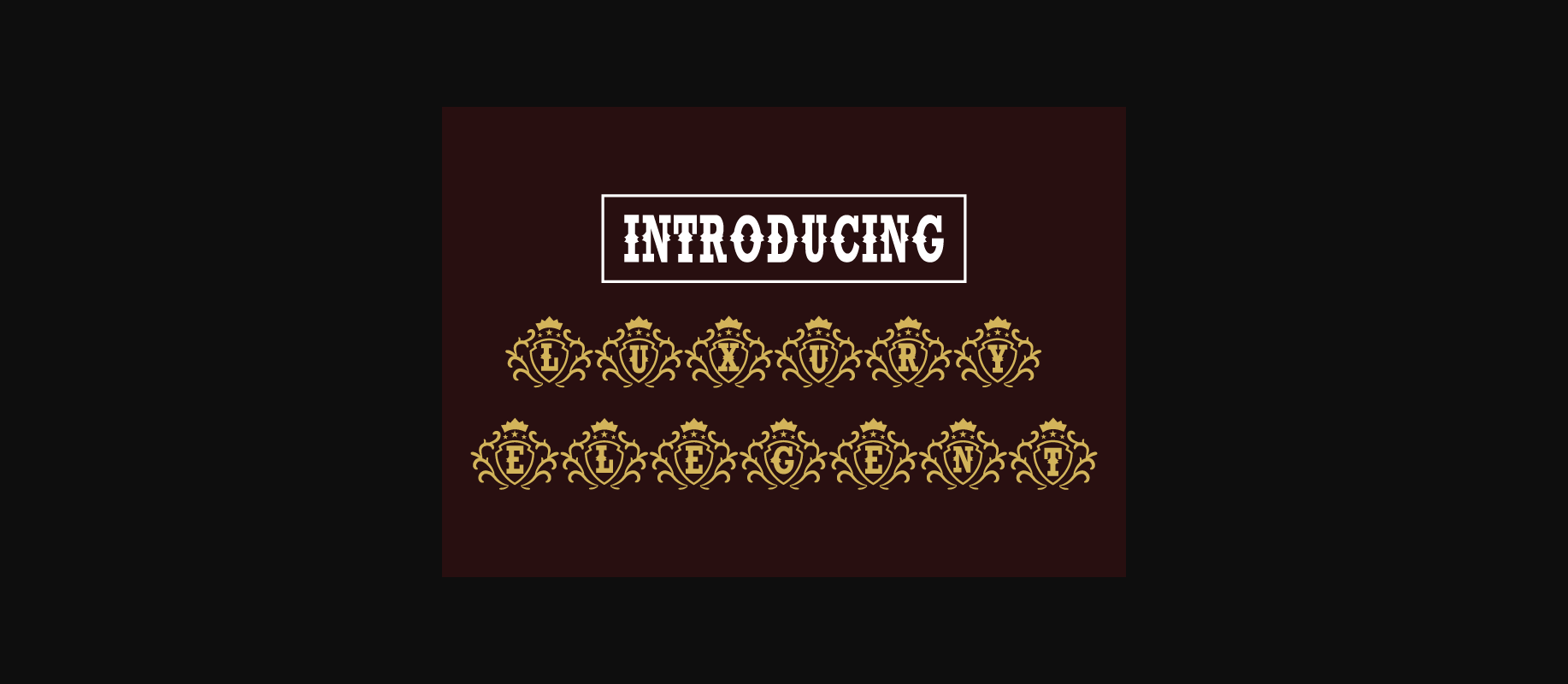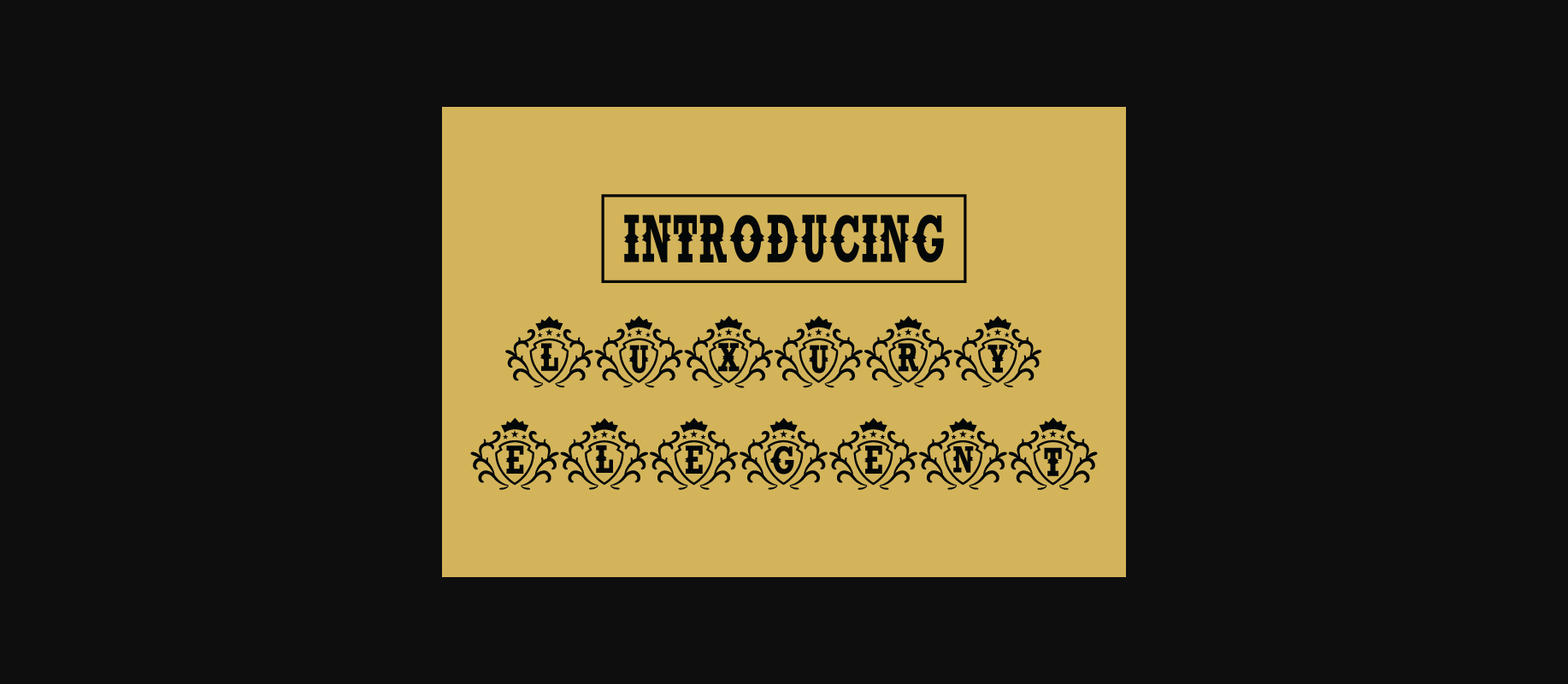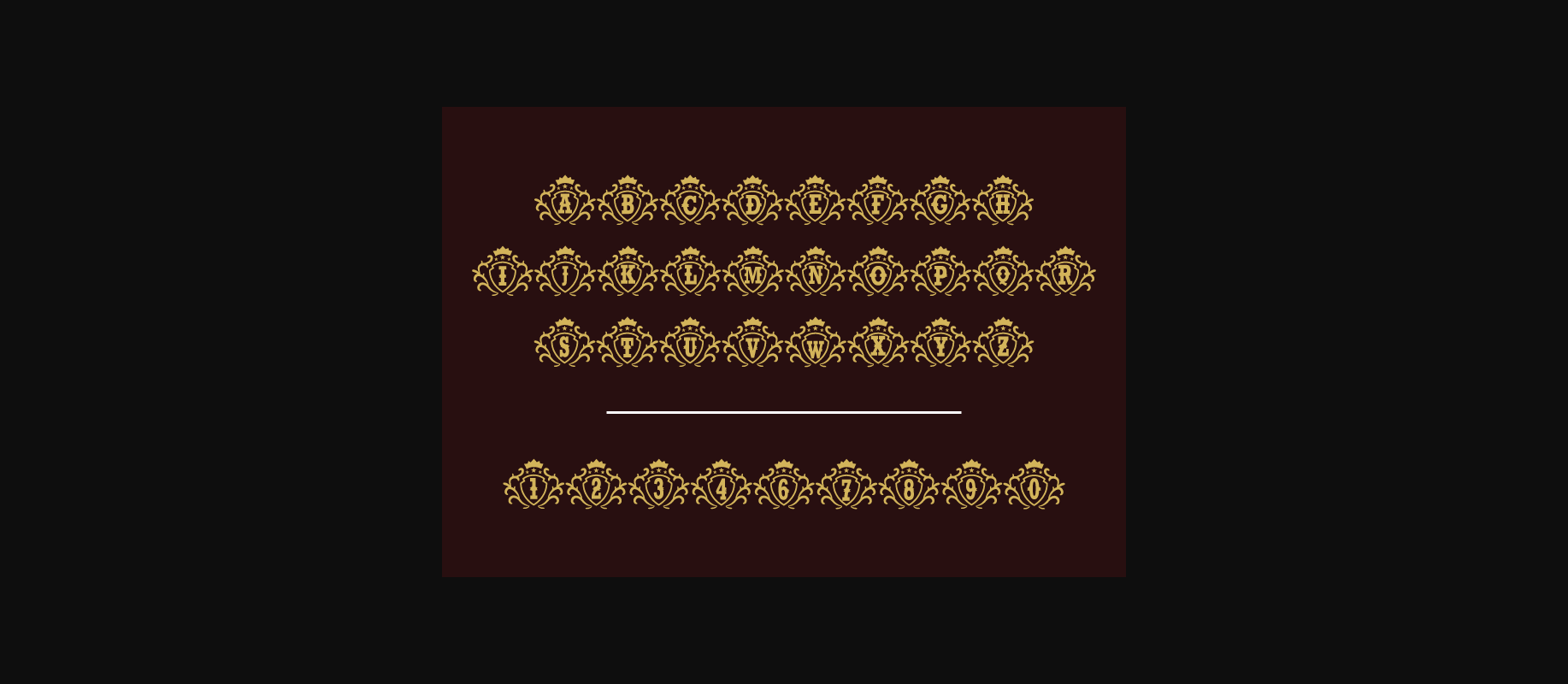
Luxury Elegent Font
About Luxury Elegent Font
Luxury Elegent is a gorgeous decorative font, that fits incredibly well to this time of the year. No matter the topic, this font will be an incredible asset to your fonts’ library, as it has the potential to elevate any creation.